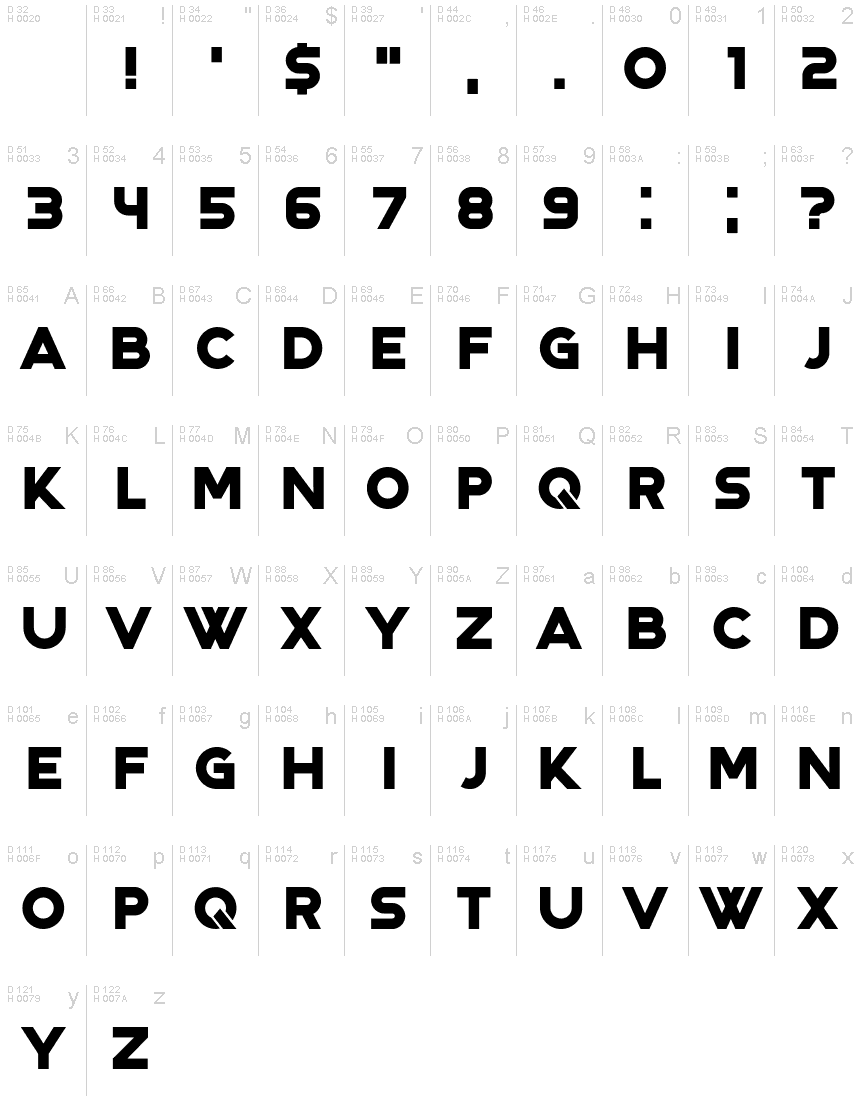
Ronda Regular
Ronda is a bold sans serif font designed by Vladimir Nikolic. Perfect for creating an eye-catching impact in any project, Ronda works especially well for logos, posters, headlines and advertising. With its versatile boldness, it can also be used to convey authority and stability.